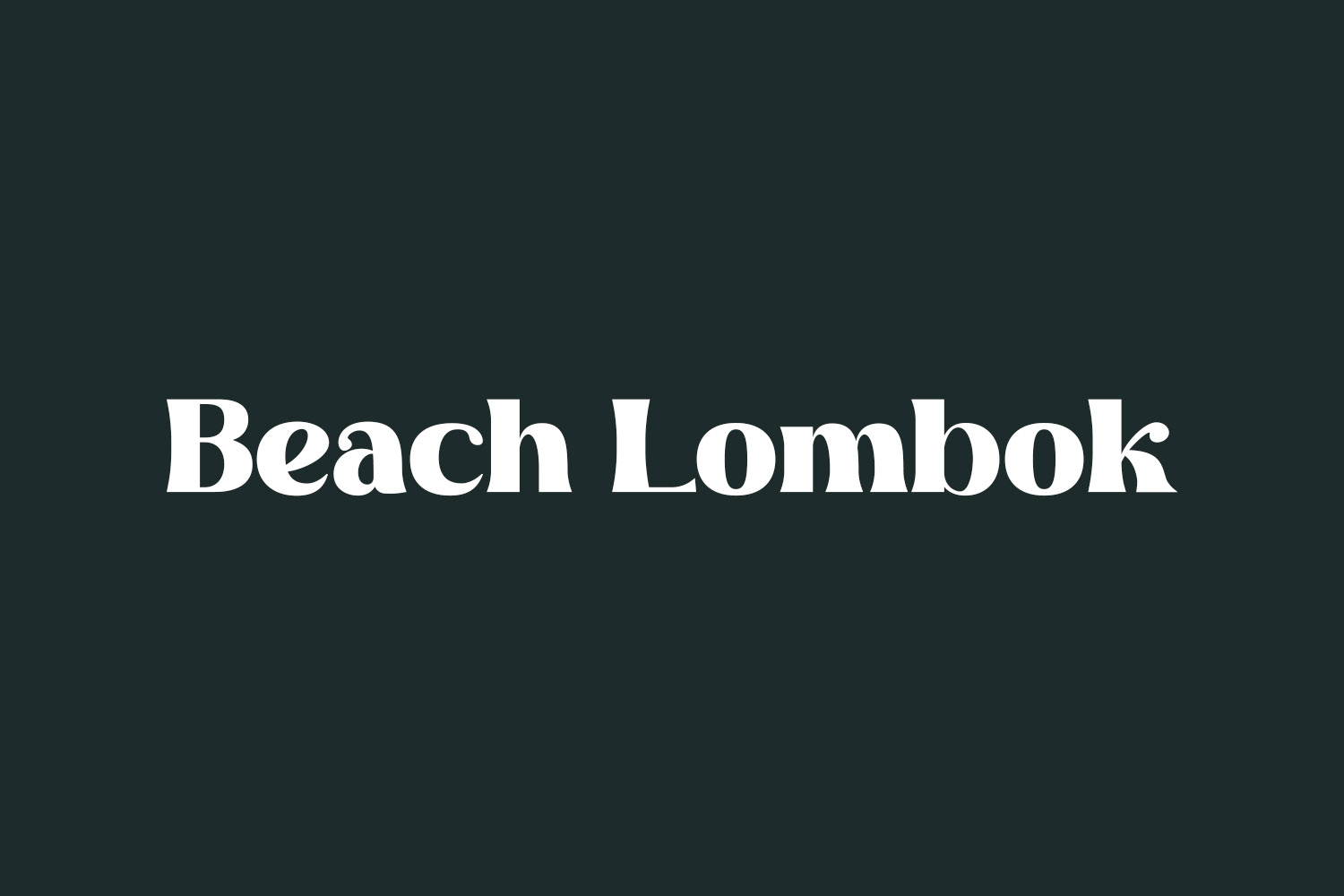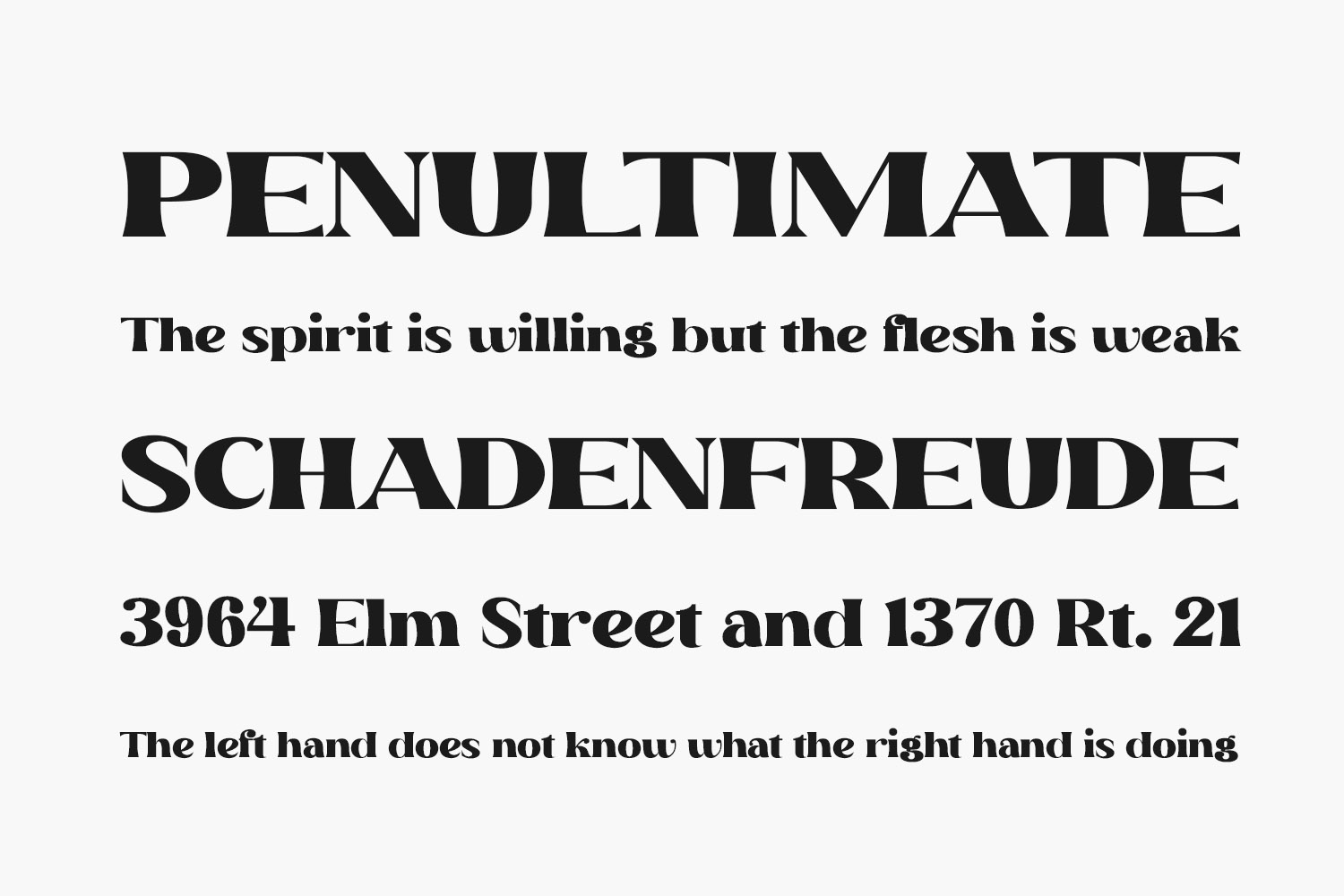
Beach Lombok Free Font Family is a cool, thick lettered, and classic serif font. It looks beautiful on a variety of designs requiring a personalized style, such as wedding invitations, thank you cards, weddings, greeting cards, logos, and so on. Beach Lombok Free Font Family was designed by Letterena Studios and is free for personal use only. Please purchase the full version for commercial use.